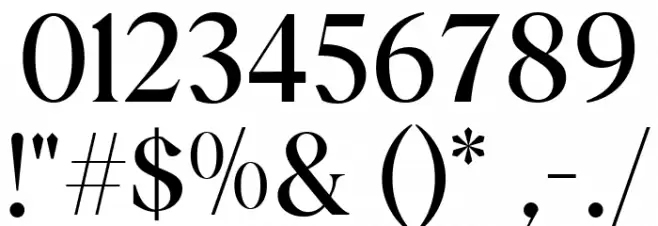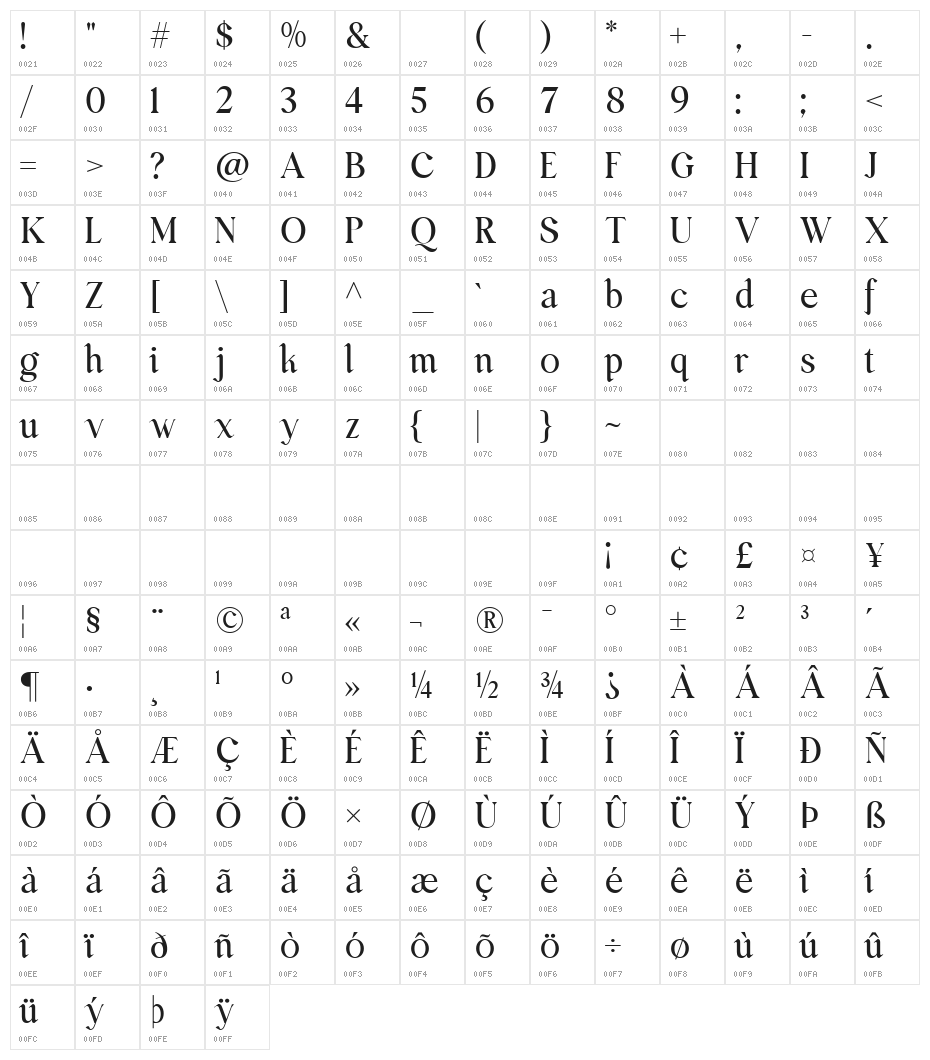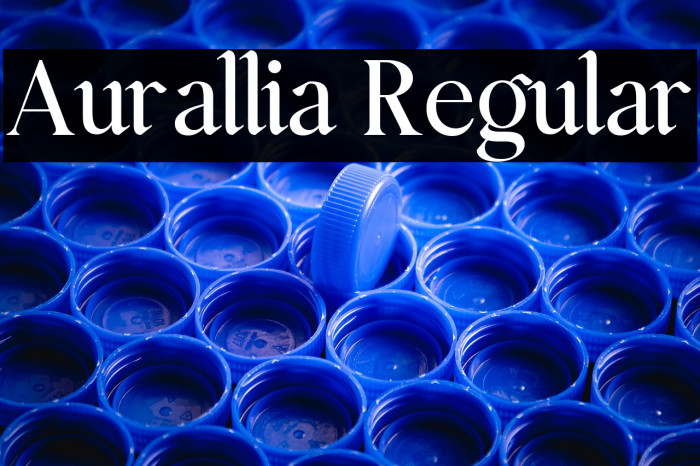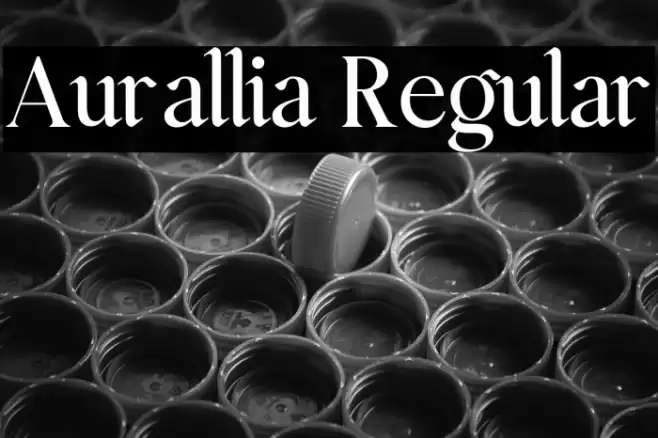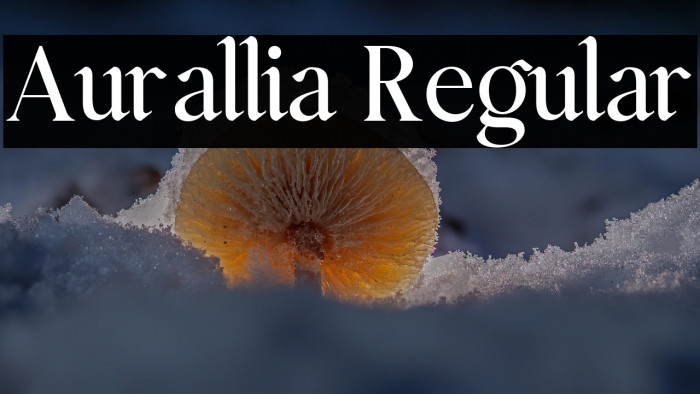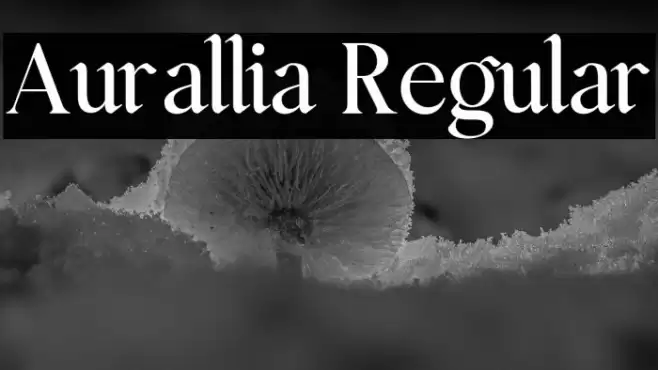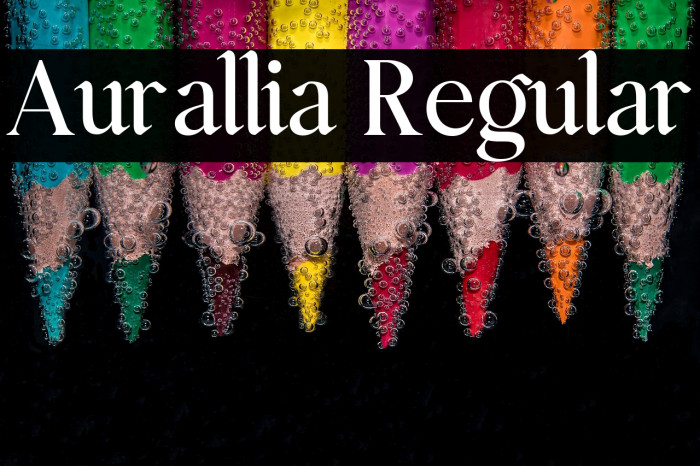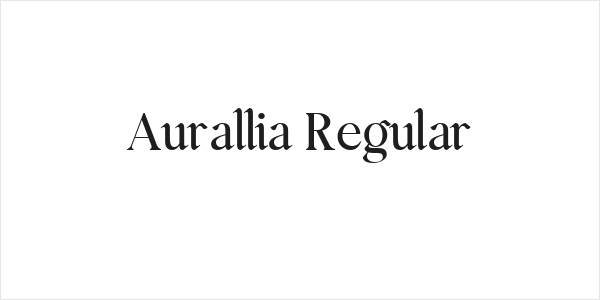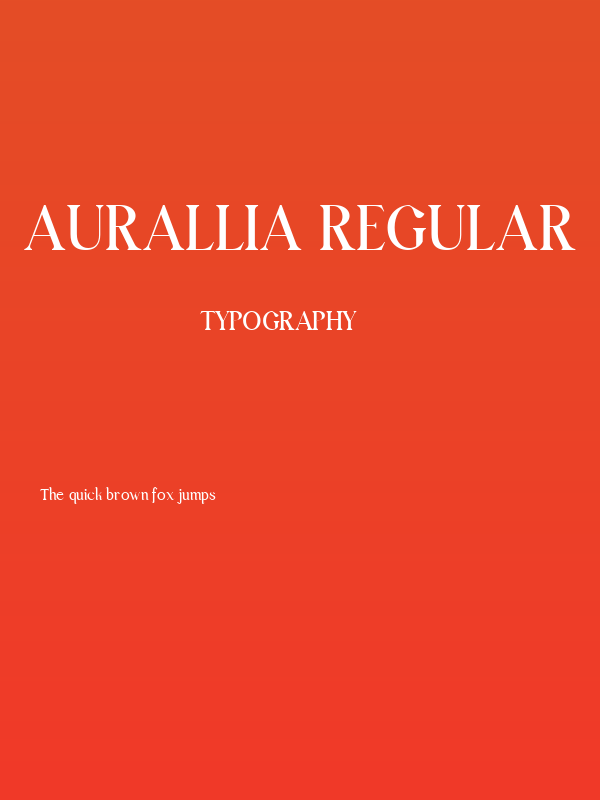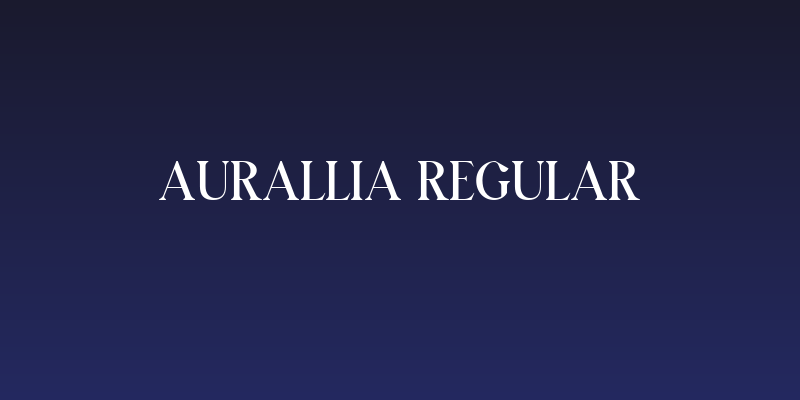
Aurallia Regular Font
Aurallia Regular Description
This font features a classic serif style with elegant, flowing lines and a sophisticated appearance. The uppercase letters are bold and commanding, while the lowercase letters maintain a graceful and refined look. The numerals are clear and well-defined, complementing the overall aesthetic. Special characters are designed with the same attention to detail, ensuring consistency across all glyphs. The font's contrast in stroke thickness adds to its readability and visual appeal, making it suitable for a variety of design applications.
| Proposed Projects | Ideal for use in editorial design, book covers, branding, and high-end product packaging. |